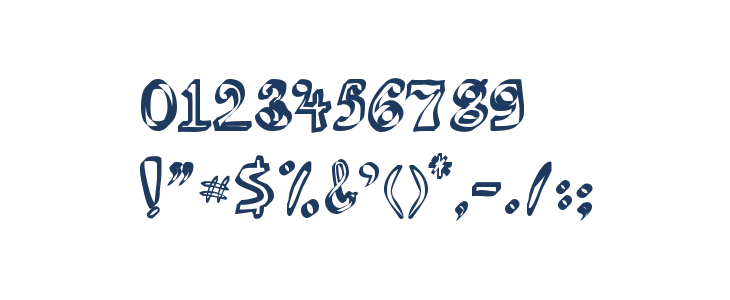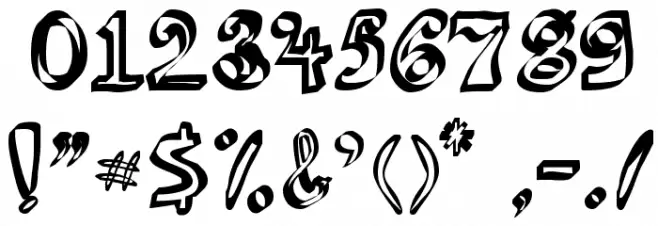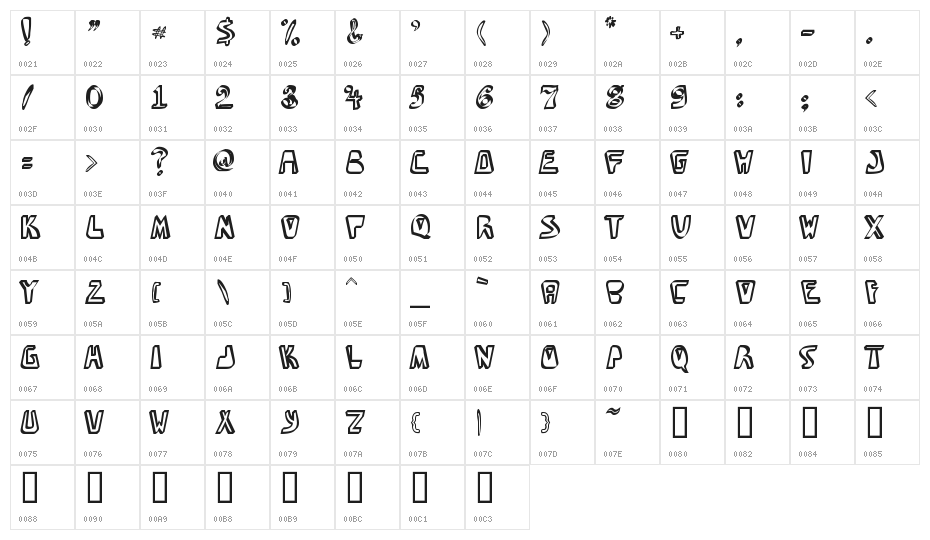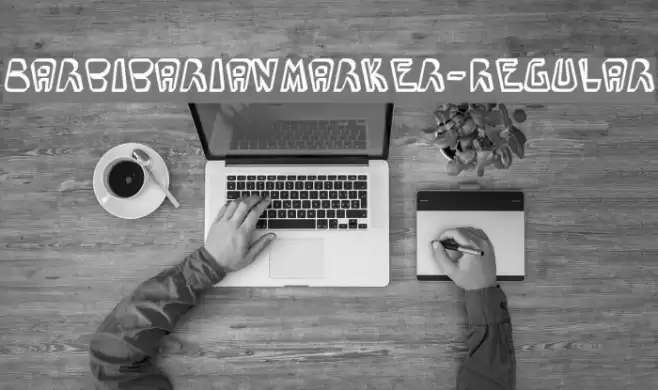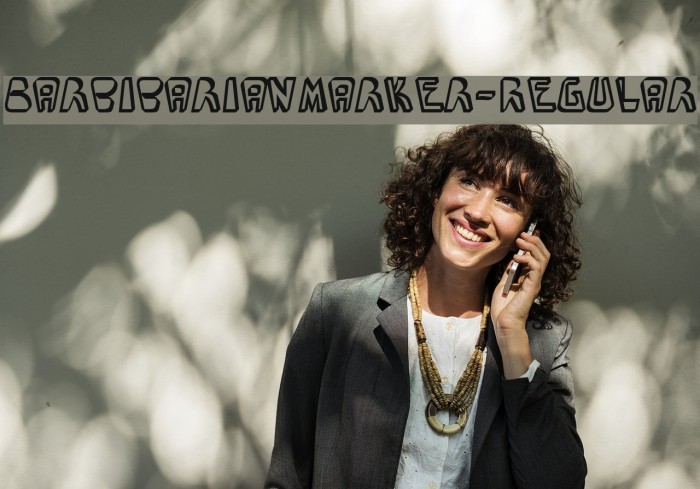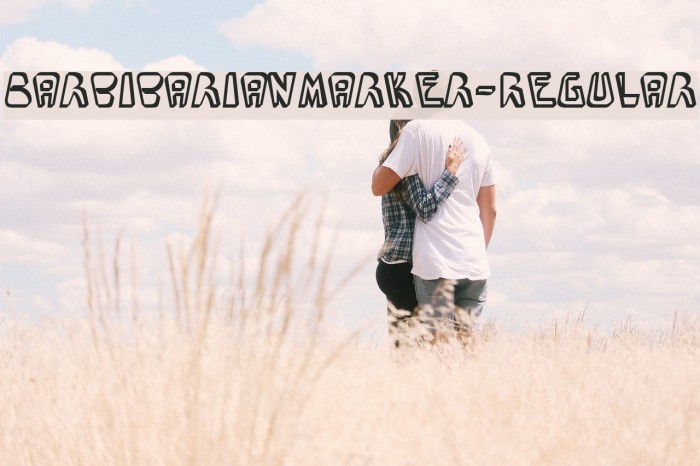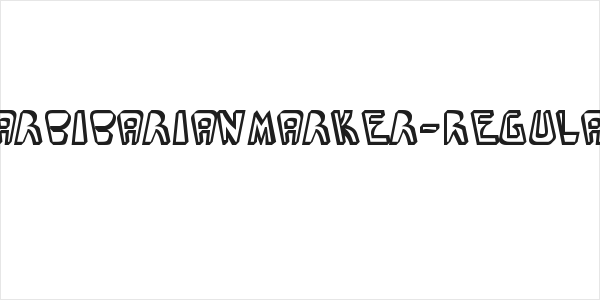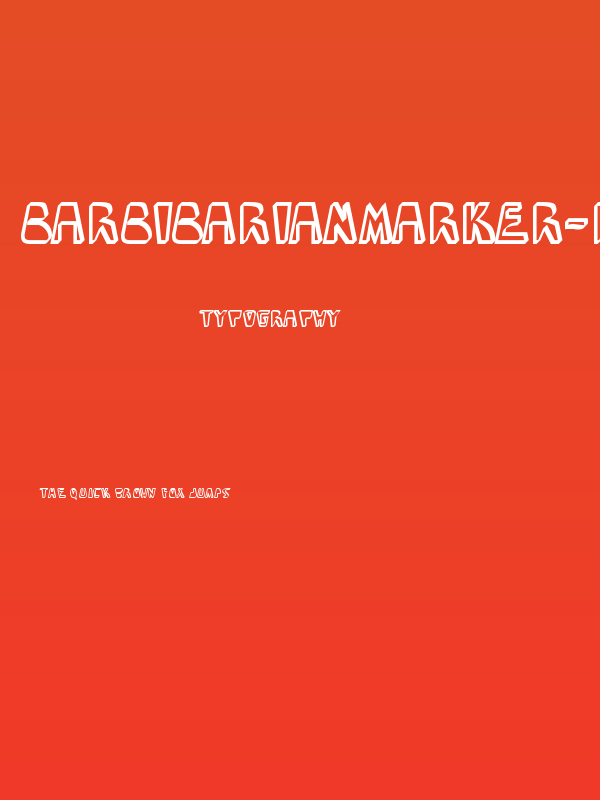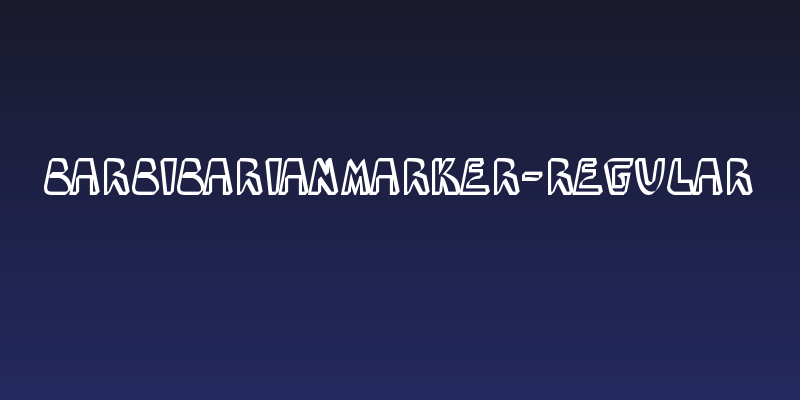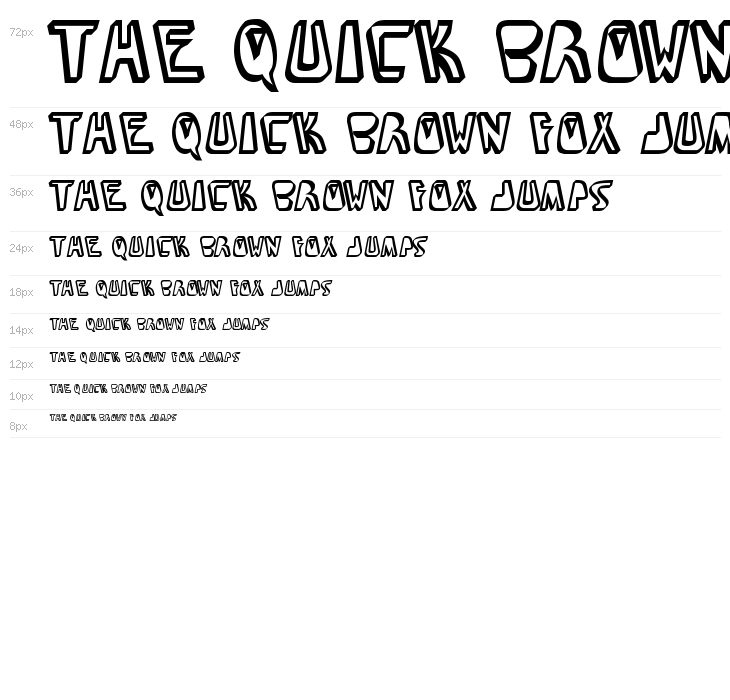
BarbibarianMarker-Regular Font
BarbibarianMarker-Regular Description
This font features a bold, playful design with a three-dimensional effect that gives each character a unique, shadowed appearance. The letters are uppercase and lowercase, with a consistent thickness that adds to the boldness of the style. The numbers and special characters follow the same design principles, making them cohesive with the alphabet. The font's overall look is dynamic and eye-catching, suitable for projects that require a strong visual impact.
Proposed ProjectsIdeal for posters, comic book titles, video game graphics, and any creative project that needs a bold, dynamic typeface.